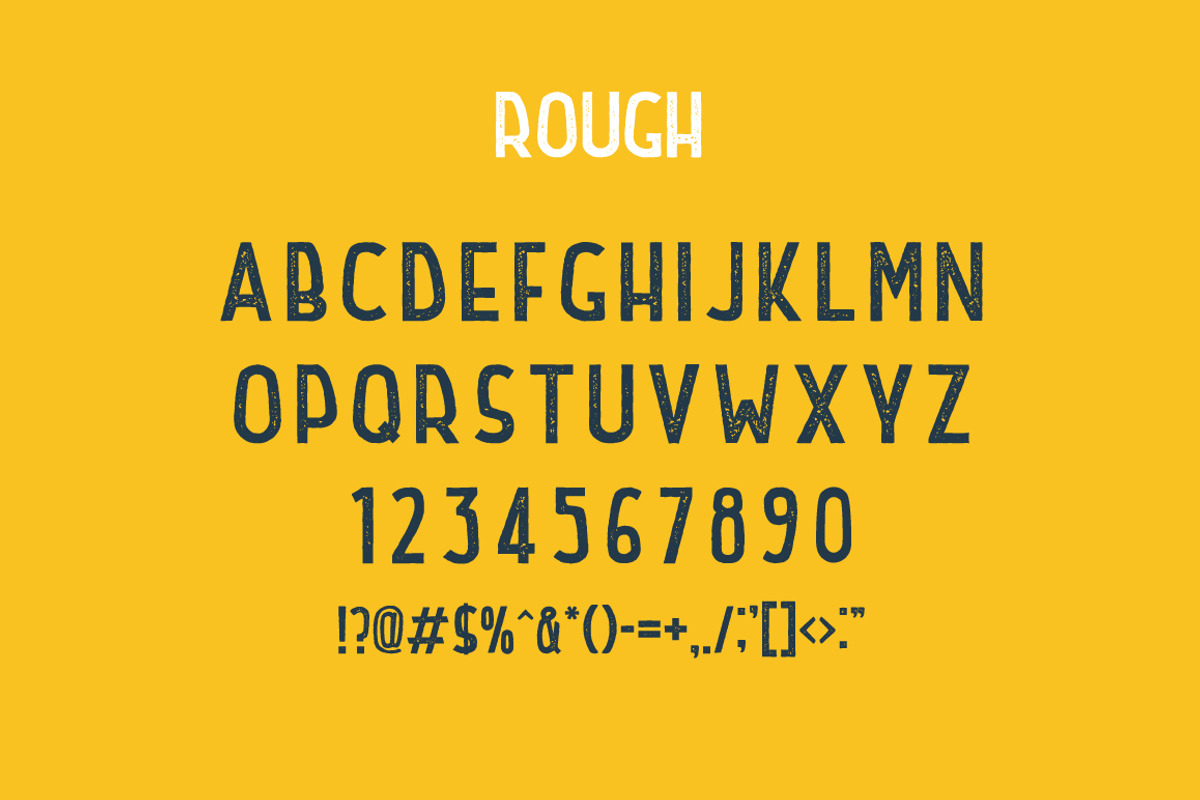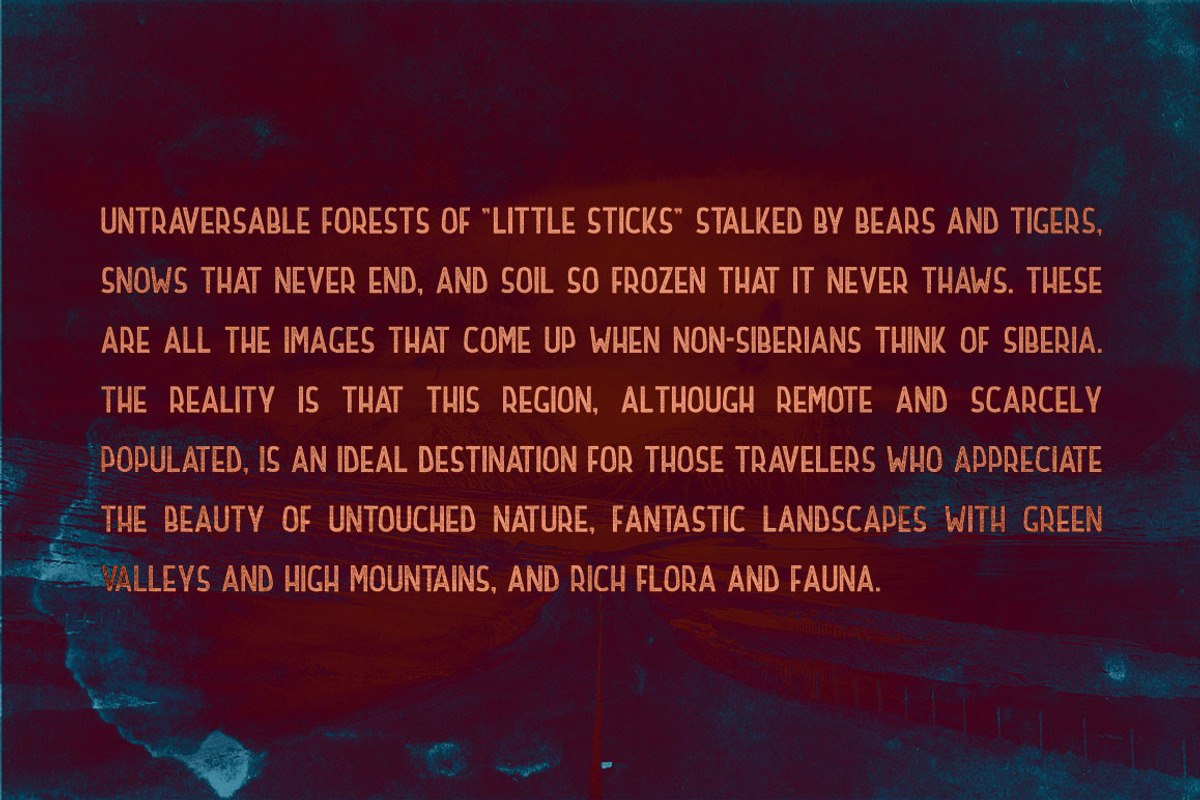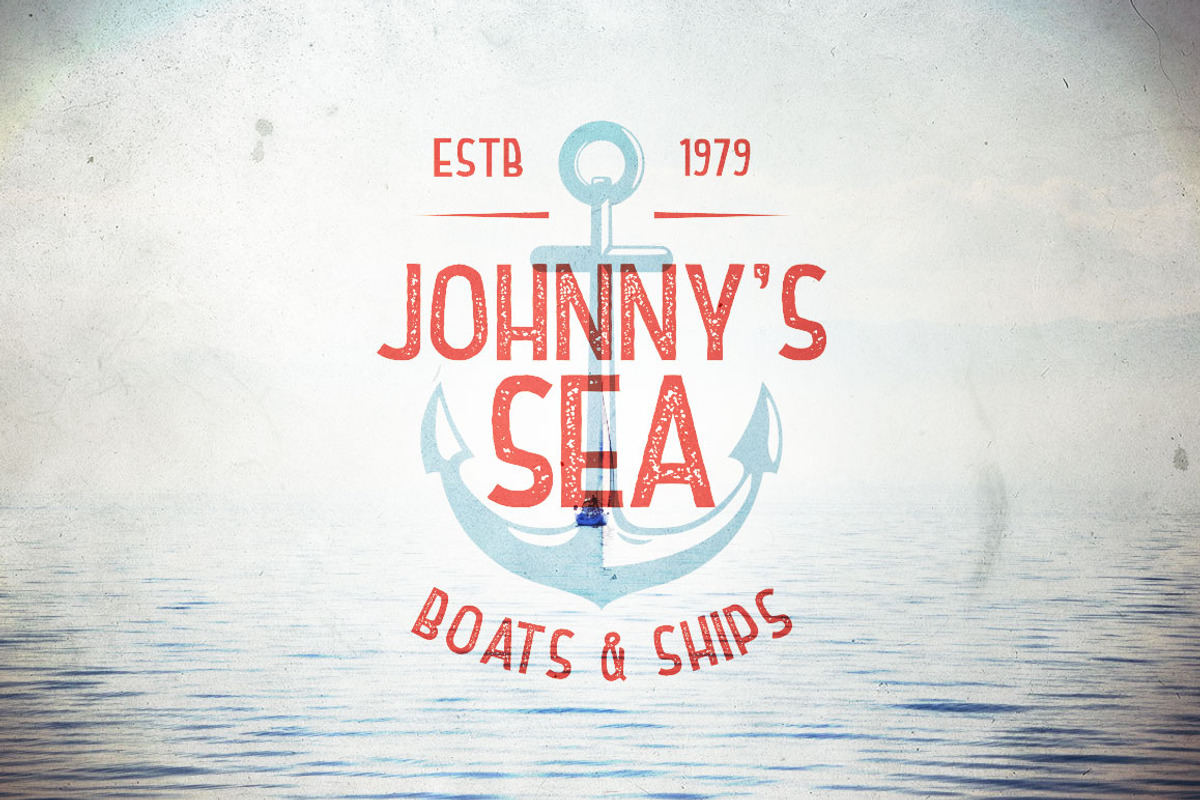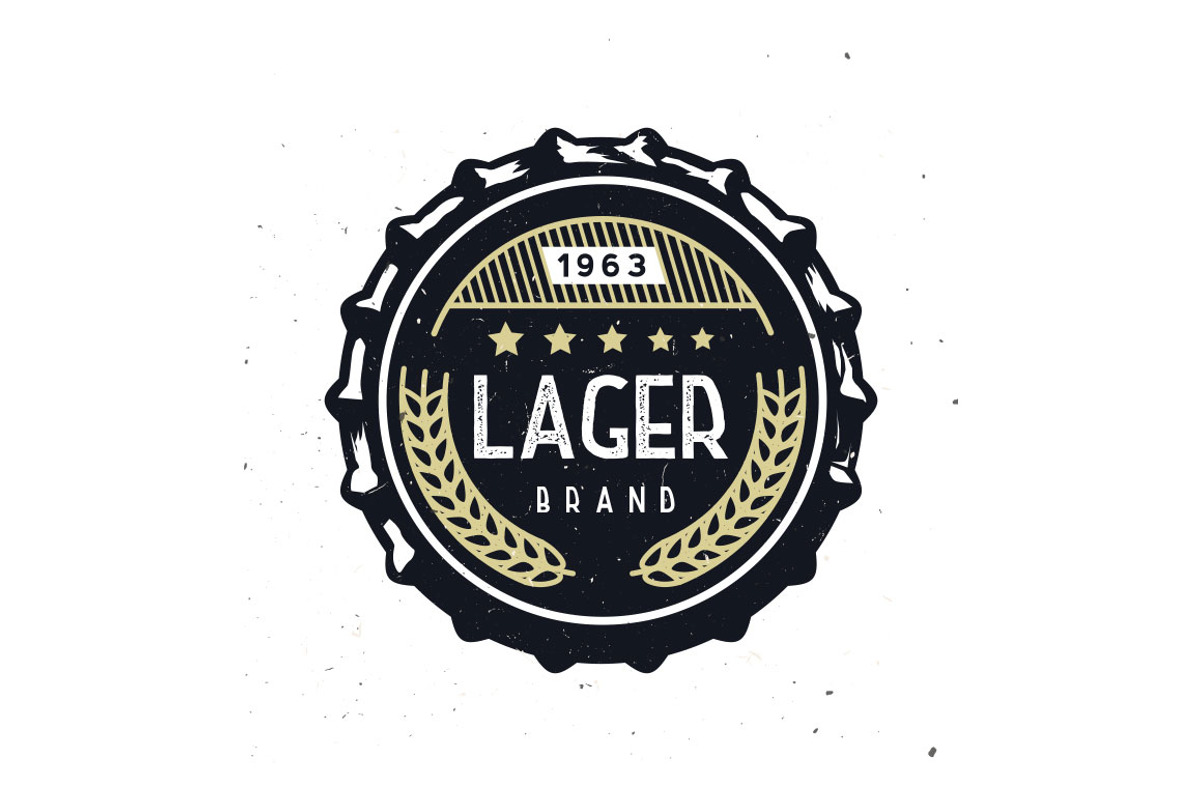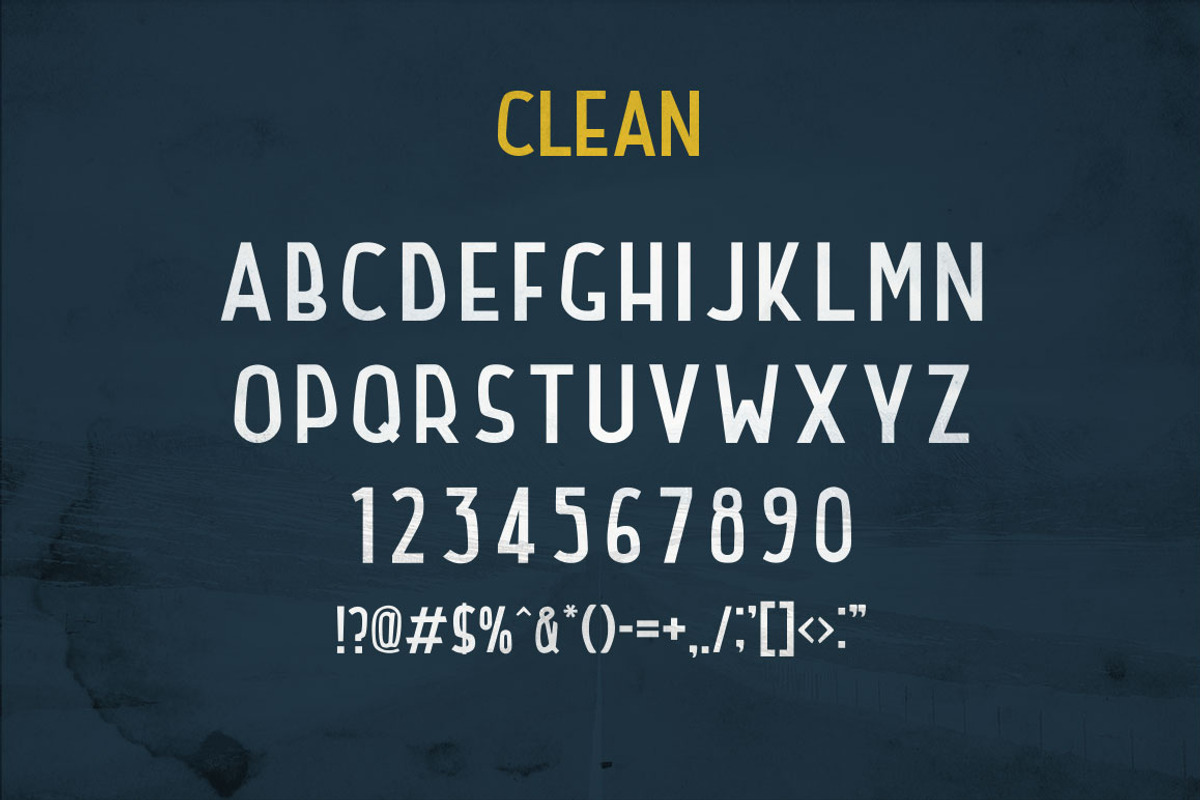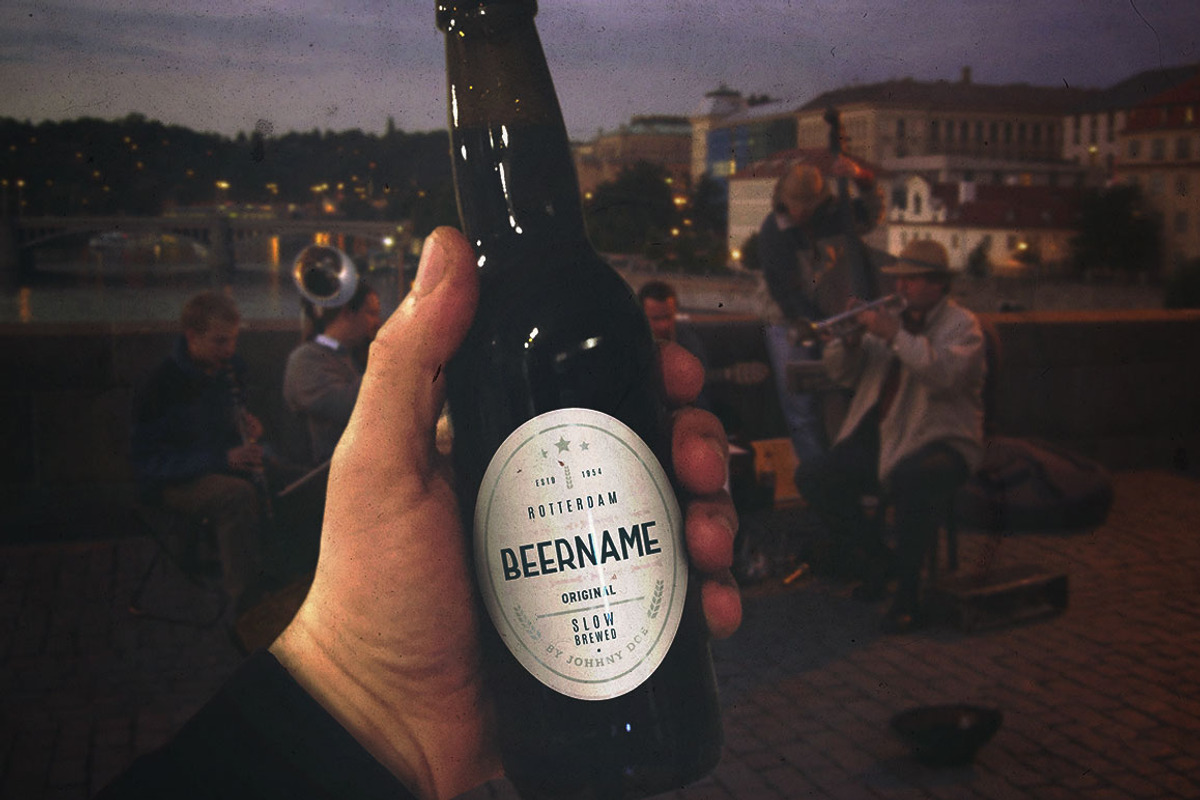
Northern Highway - Font Duo
Northern Highway - new retro, vintage, minimal and simple font duo. Come with two styles: clean & rought with little gritty distressed texture. Just mix the styles to create your design unique. Perfect for logo design with vintage spirit: just place the big text writed by Northern Highway in the middle, add some second texts and your branding graphic object and logo is completed! Looks rustic and soulful ;)
Font is all-caps and contains letters A-Z, numerals 0-9 and all necessary punctuation symbols.